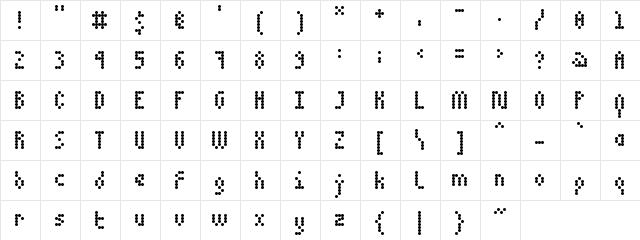
5Dotmatrix 1979 Regular
| Designer | Noah - 11 year old typomaniac |
Design Context for 5Dotmatrix 1979 Typeface
5Dotmatrix 1979 is rooted in pixel-grid construction, making it a natural fit for game UI, retro computing aesthetics, and digital nostalgia projects.
A natural choice for retro game titles, chiptune music branding, 8-bit UI, and digital nostalgia projects.
Pro Tip: Pair 5Dotmatrix 1979 with flat colour palettes and simple geometric UI elements to reinforce its digital aesthetic.